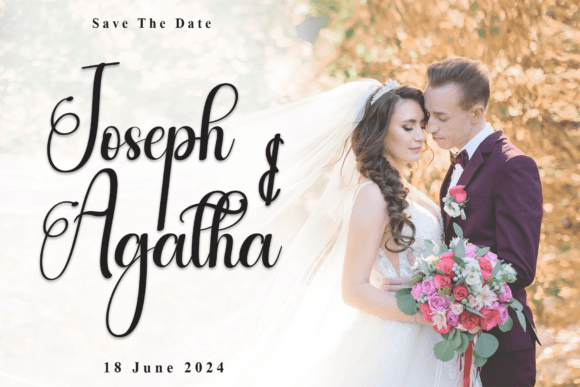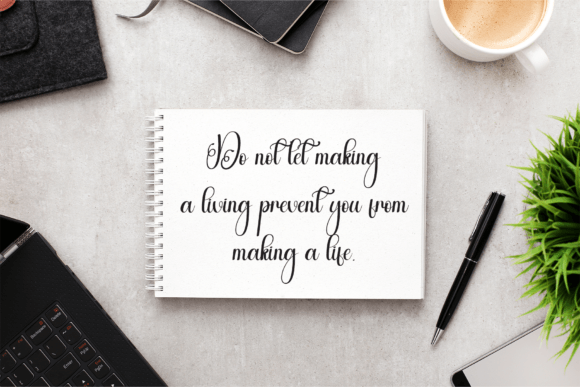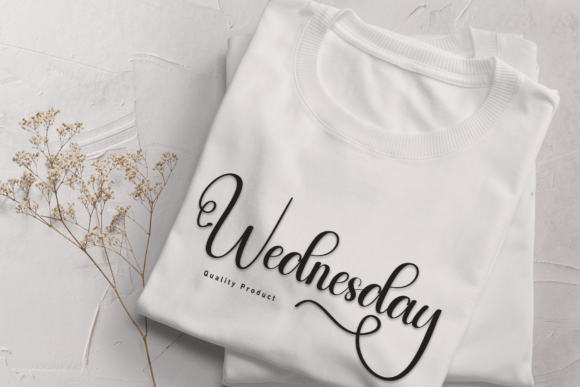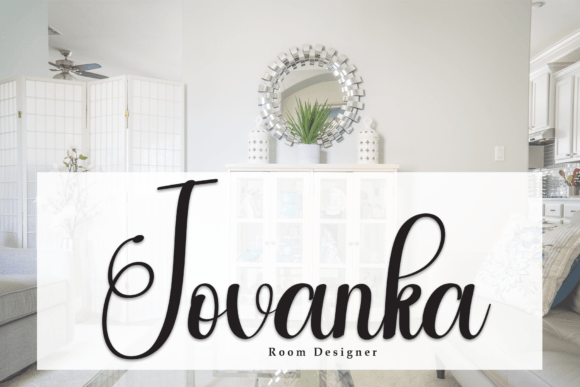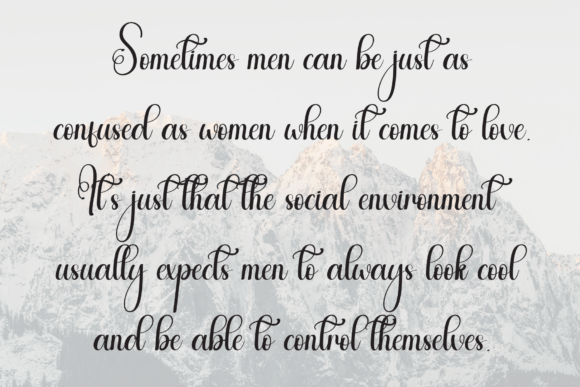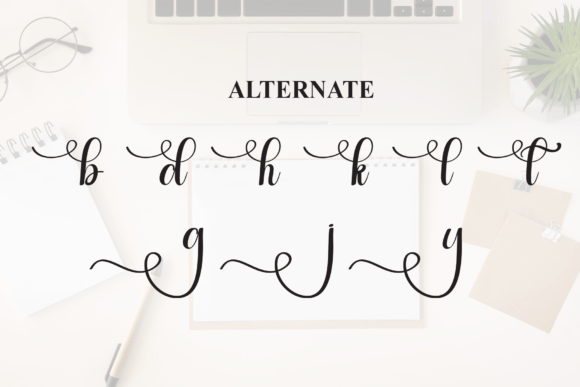
Introduction to Inerday Font
As you sit at your desk, surrounded by scribbled notes and half-finished design concepts, the perfect font suddenly pops into your mind. The one that adds a dash of whimsy to your creative project, a sprinkle of magic to your design. For many designers, that moment of epiphany is exactly what they’re searching for – and we’re thrilled to introduce the Inerday Font, a charming handwritten display font that embodies the essence of friendliness and playfulness.
Whether you’re crafting wedding invitations, heartfelt cards, or simply want to add a touch of high-quality whimsy to your design, the Inerday Font is an invaluable resource for any creative project. With its transparent background and free download option, this delightful font is easily accessible, making it a valuable addition to any designer’s toolkit.
Get ready to infuse your designs with a burst of vivacious energy, courtesy of the Inerday Font – a truly unique design resource that’s sure to leave a lasting impression on your audience.
Key Features of Inerday Font
- High-quality design resource suitable for various creative projects, including graphics, logos, and typography.
- Unique characteristics include a modern, minimalist aesthetic and a wide range of stylistic variations, making it an excellent choice for designers looking to add some flair to their projects.
- Perfect for designers who want a high-quality, free font that is easy to use and customize, making it an ideal addition to any design resource library.
Honest Review: Inerday Font
As a designer, I’m always on the lookout for high-quality design resources that can elevate my creative projects. Recently, I had the chance to try out the Inerday Font, and I’m excited to share my honest review.
- ✨ High-quality typography with a modern and clean aesthetic
- ✨ A wide range of weights and styles, perfect for creating visually appealing typography
- ✨ A transparent background option, allowing for seamless integration with various design elements
- ⚠️ Limited character set, which may not be ideal for extended text blocks
Overall, I’m impressed with the Inerday Font’s potential as a design resource. While it may not be perfect, its high-quality typography and free download make it an excellent choice for creative projects. With a bit more development, I believe the Inerday Font could become a go-to font for designers everywhere.
For the best results, use the Inerday Font with a transparent background to create a clean and modern look. Experiment with different font sizes and colors to find the perfect combination for your project.
The Inerday Font is perfect for a variety of creative projects, including logos, business cards, and social media graphics. Its high-quality design makes it a great choice for both personal and professional projects.